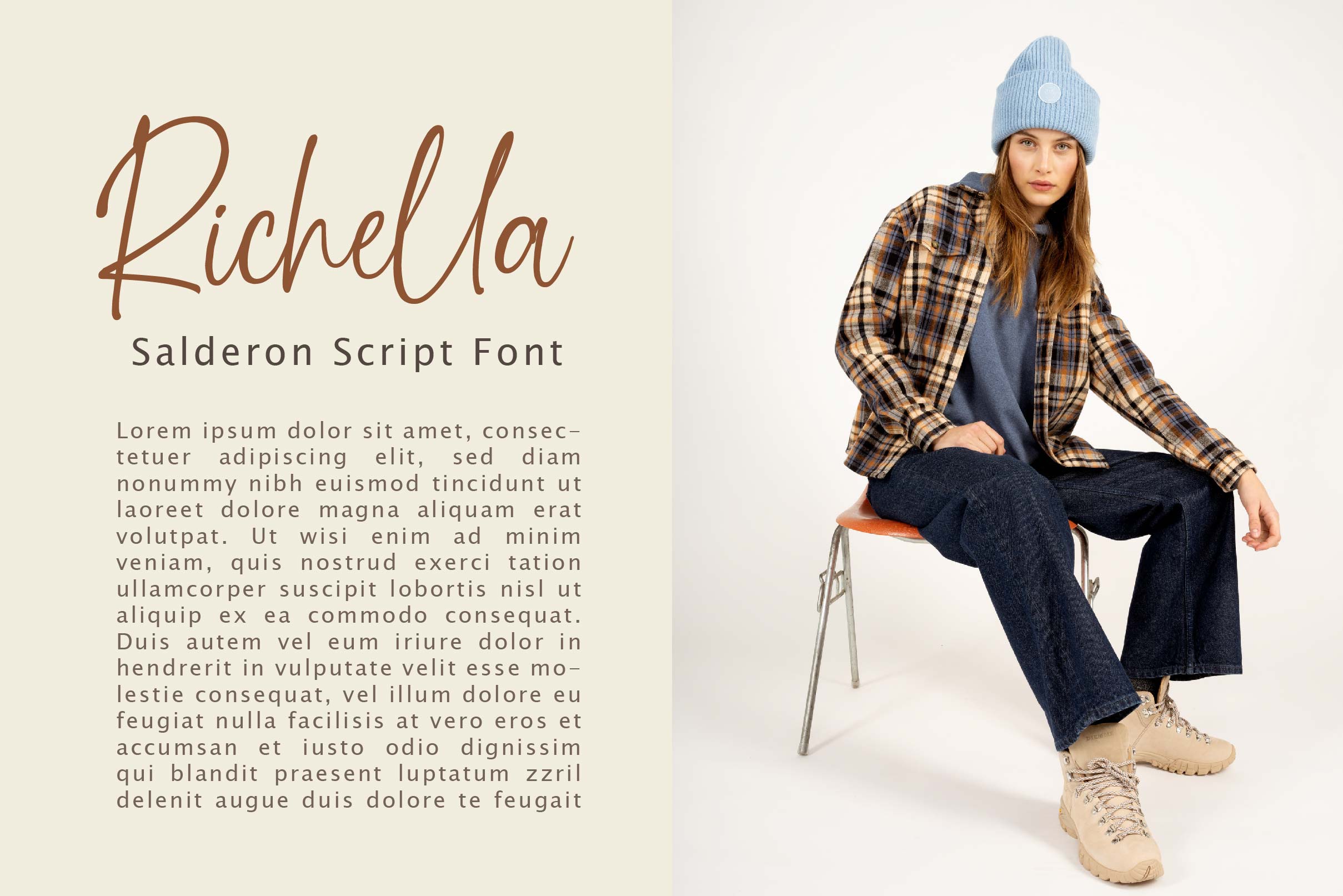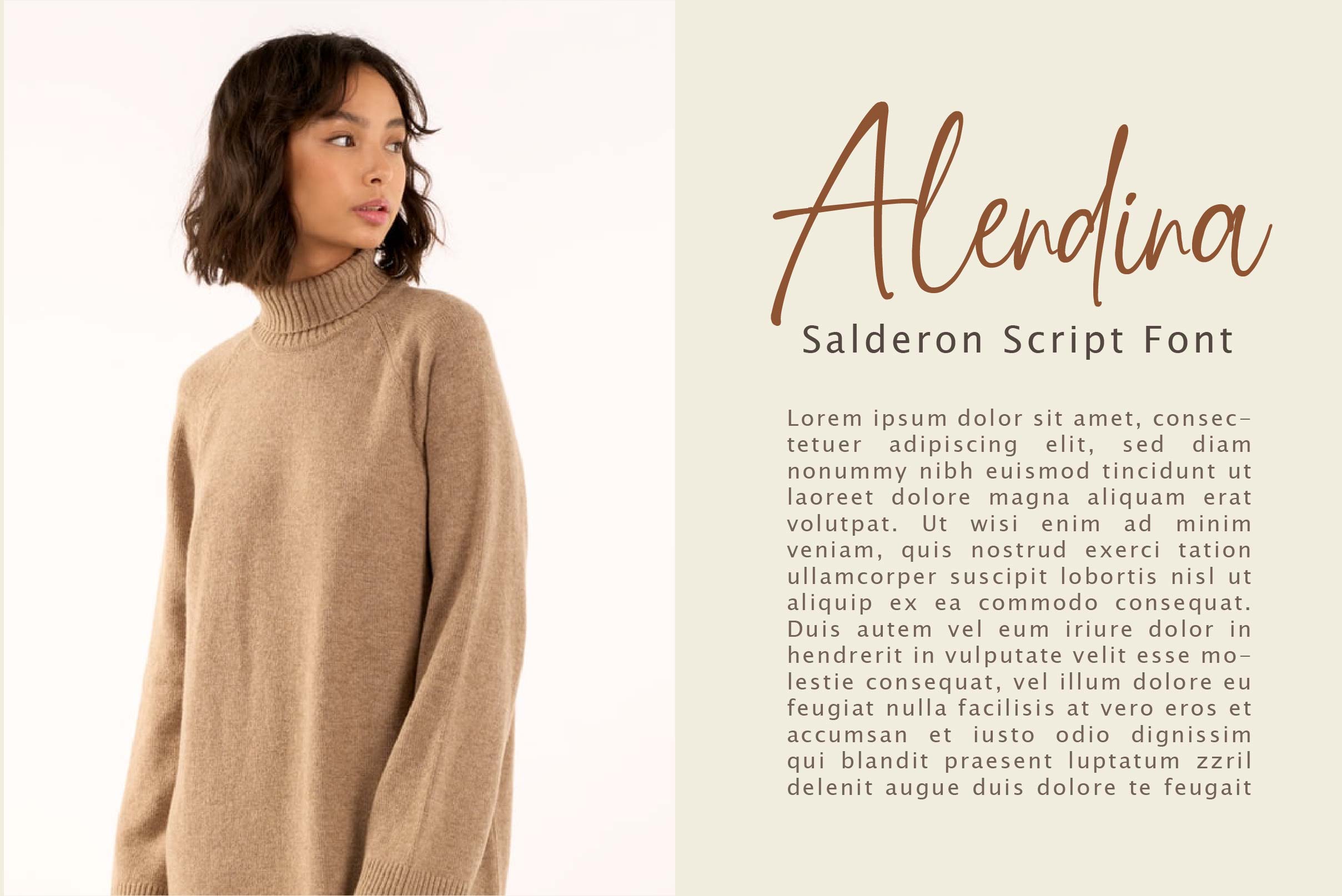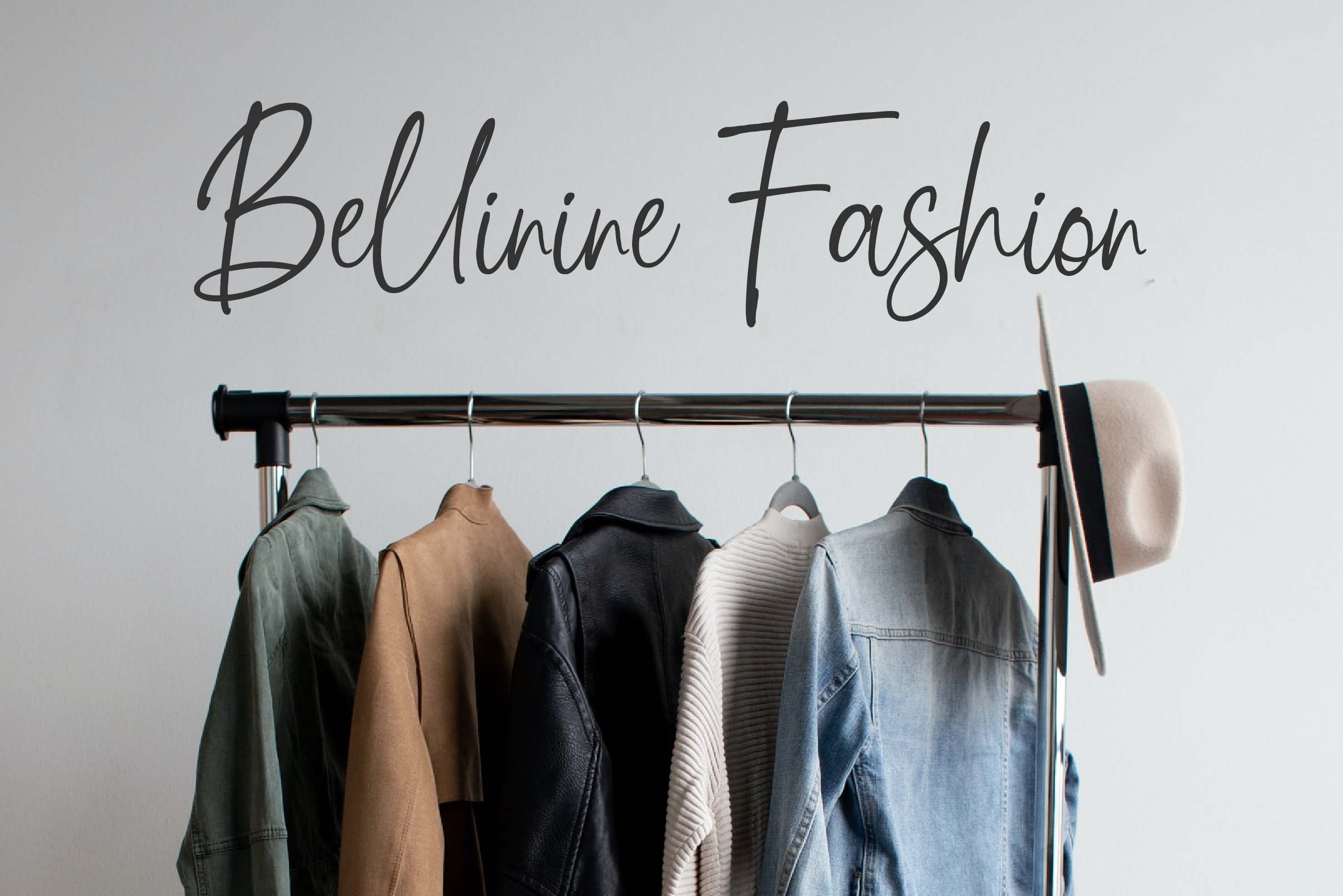
Salderon Font
Salderon Script Font is a thin lettered and delicate script font that exudes elegance and class. This font was particularly crafted for those who need a beautiful and refreshing look to their designs.